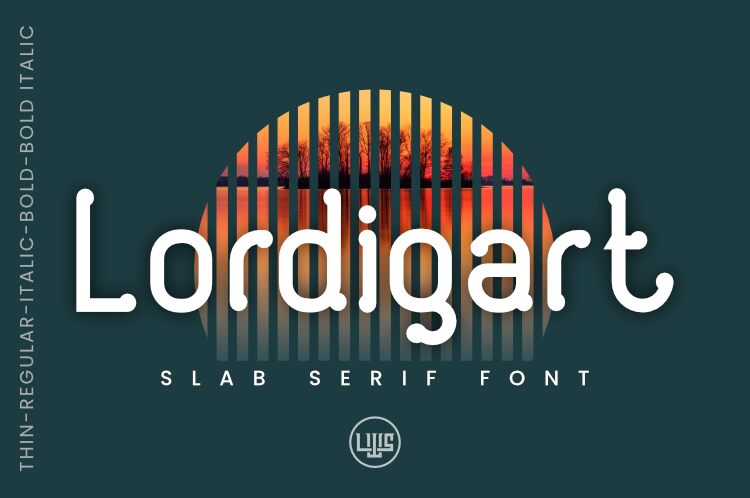
Lordigart, designed by LittleWind Studio, is a captivating display font that adds a touch of elegance to your projects. With its semi-light weight and round serifs, Lordigart exudes a harmonious balance between sophistication and approachability.
This versatile typeface is perfect for creating eye-catching logos, stylish packaging designs, or even memorable headlines for magazines and posters. Its unique combination of roundness and traditional serifs makes Lordigart an excellent choice for adding a touch of refined charm to your next creative venture.